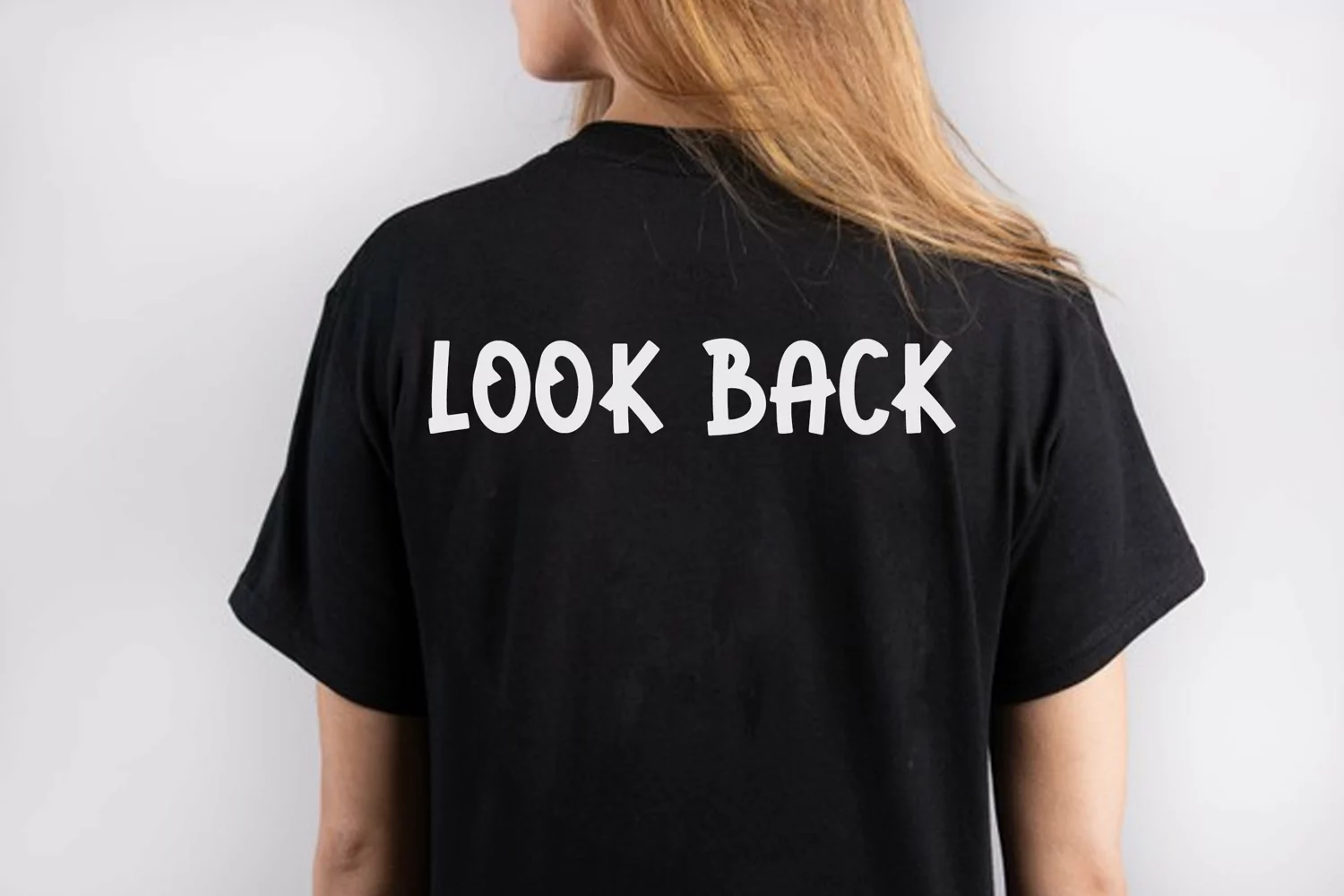
Hurry Up is a handwritten font. A craft font. A logo font. A modern font. And above all, a fun font. A simple font to make whatever you design look fantastic!
HurryUp
Hurry Up